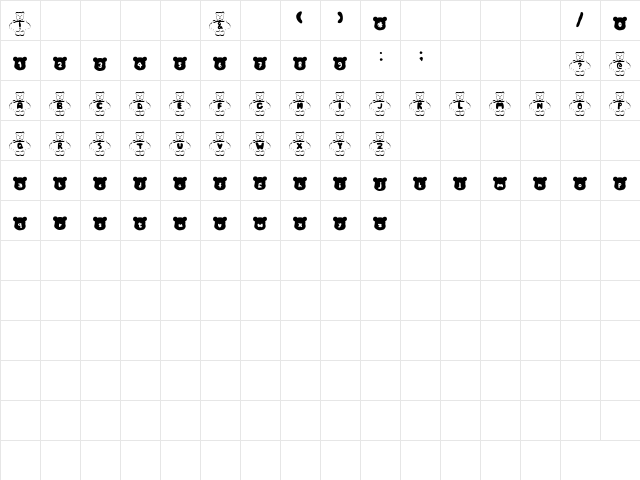
m-kuma Font Regular
Design Context for m-kuma Font Typeface
m-kuma Font is a composed and adaptable typeface that performs quietly and consistently across a wide range of design contexts.